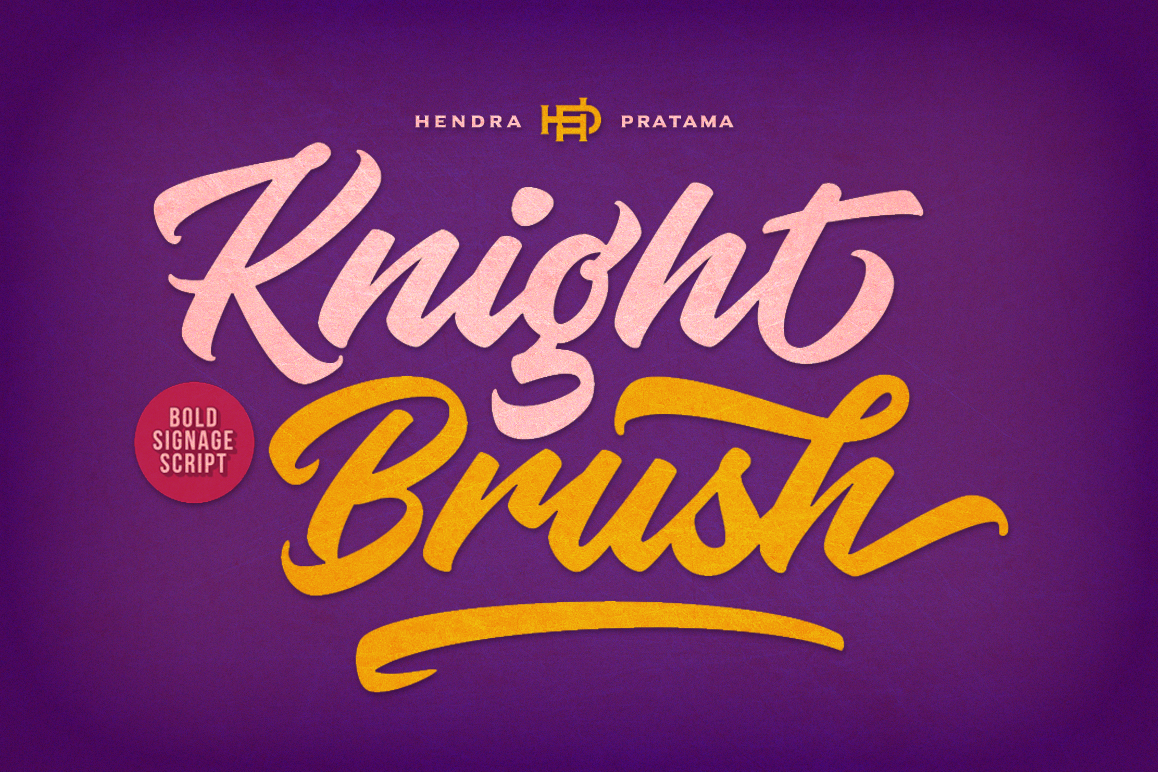
Knight Brush
Inspired by the vintage era when sign painting was take as very important part for creating storefront signboard, branding and promotional ads on the street, Knight Brush was made to resembles the brush painting looks natural.
With over 570 Glyphs and the magic of OpenType, you can create logotype and various sign art typography with this font effortless.
Stylistic Alternates, Ligatures, Swashes, Contextual and Stylistic Set (up to 16 Variants per Letter), this font is a great weapon for your design asset.